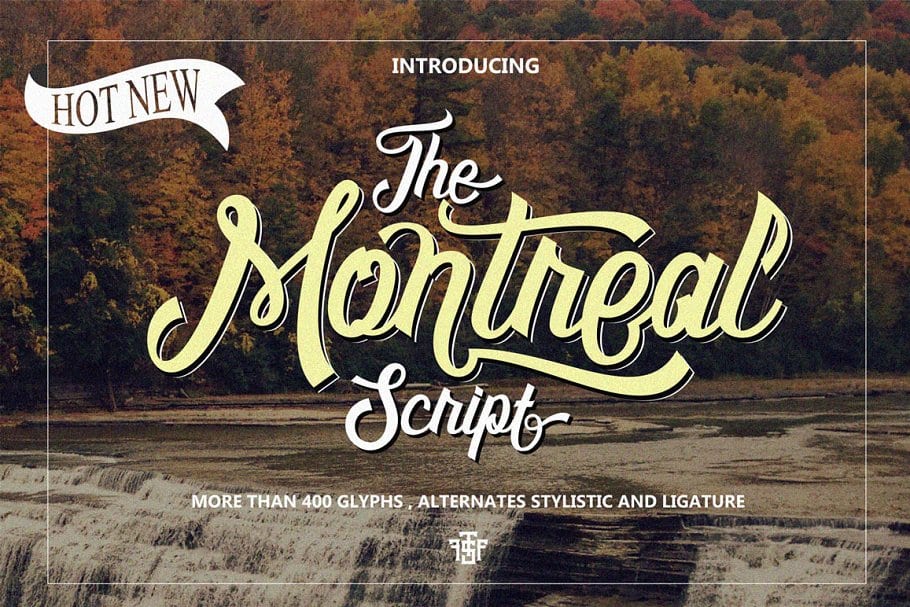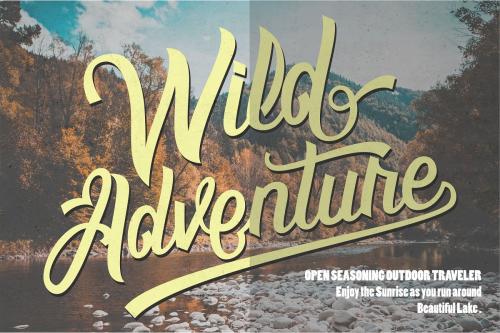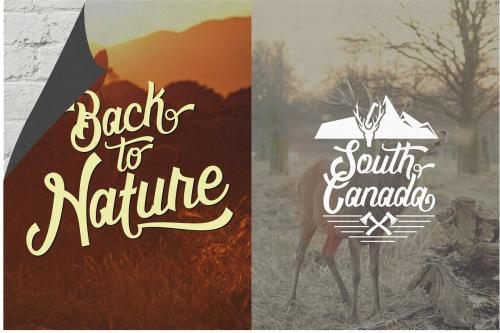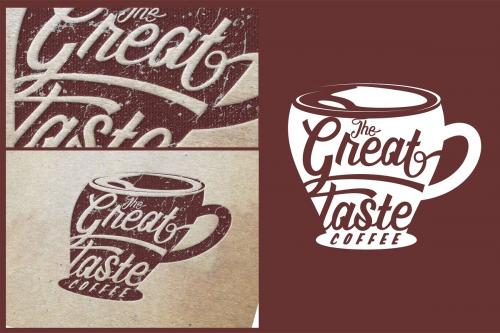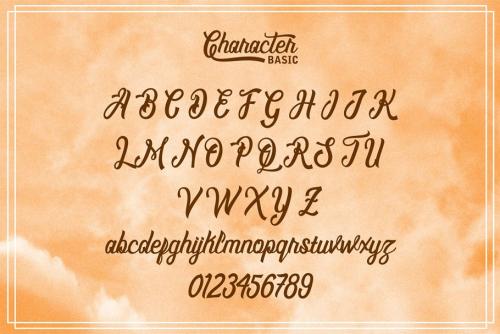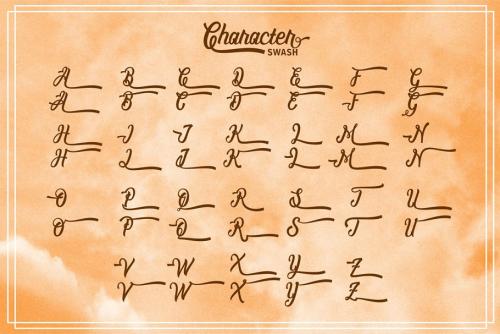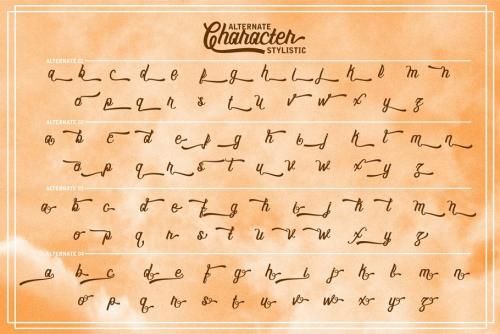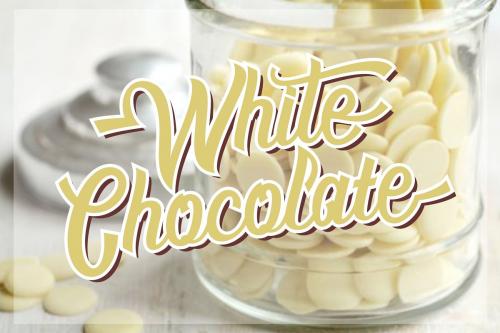
Montreal Script is one of taste of modern and classic touch , Inspiring of various artist of lettering , they make montreal have some alternates in every character to helping you make a perfect design with more possibilities.
Montreal script best use for Poster, card, Logotype, Printing Design , websites, signage, packaging and more..
- Designer: uncurve